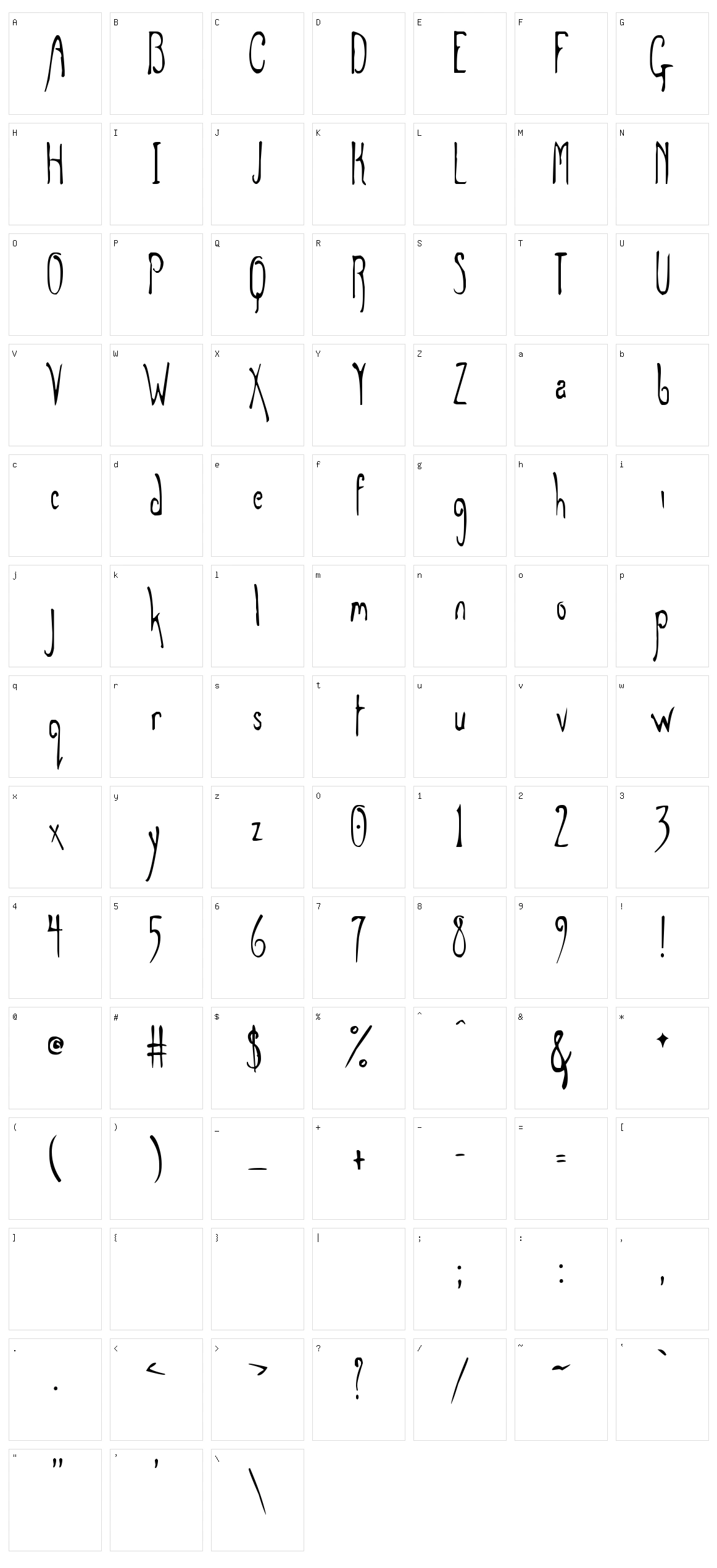
Grey Magus
"He had developed a curious handwriting style, with tall, upright letters crammed in tight against each other."
A font based on the handwriting of a character in one of my stories. It came out a little more art-nouveau-esque than I'd imagined, but I like it too much to quibble. I hope you like it too.